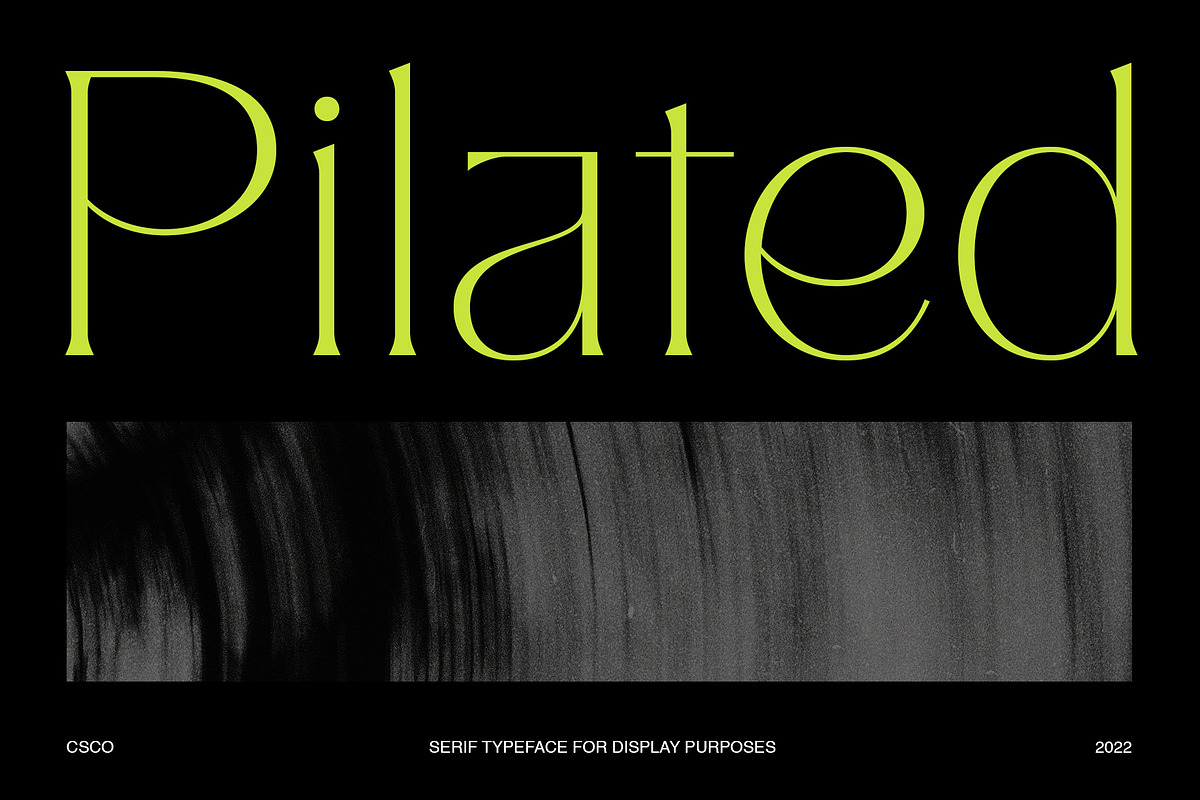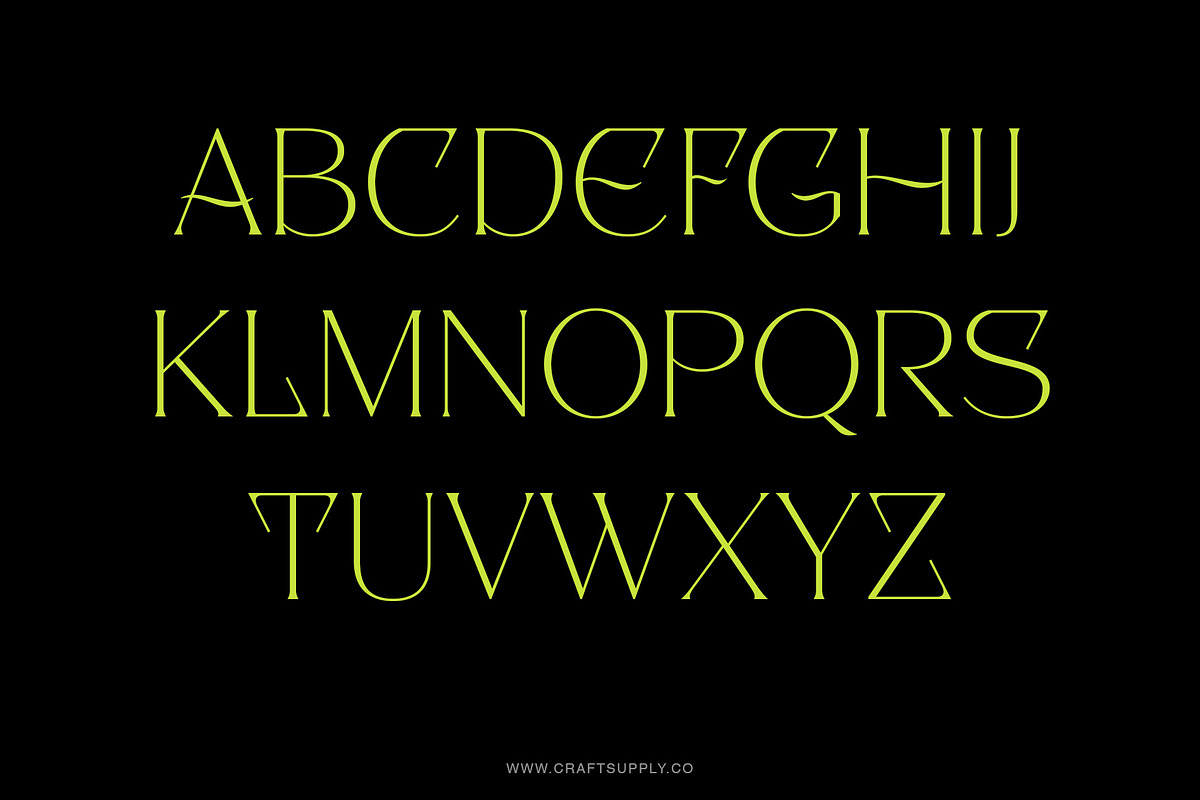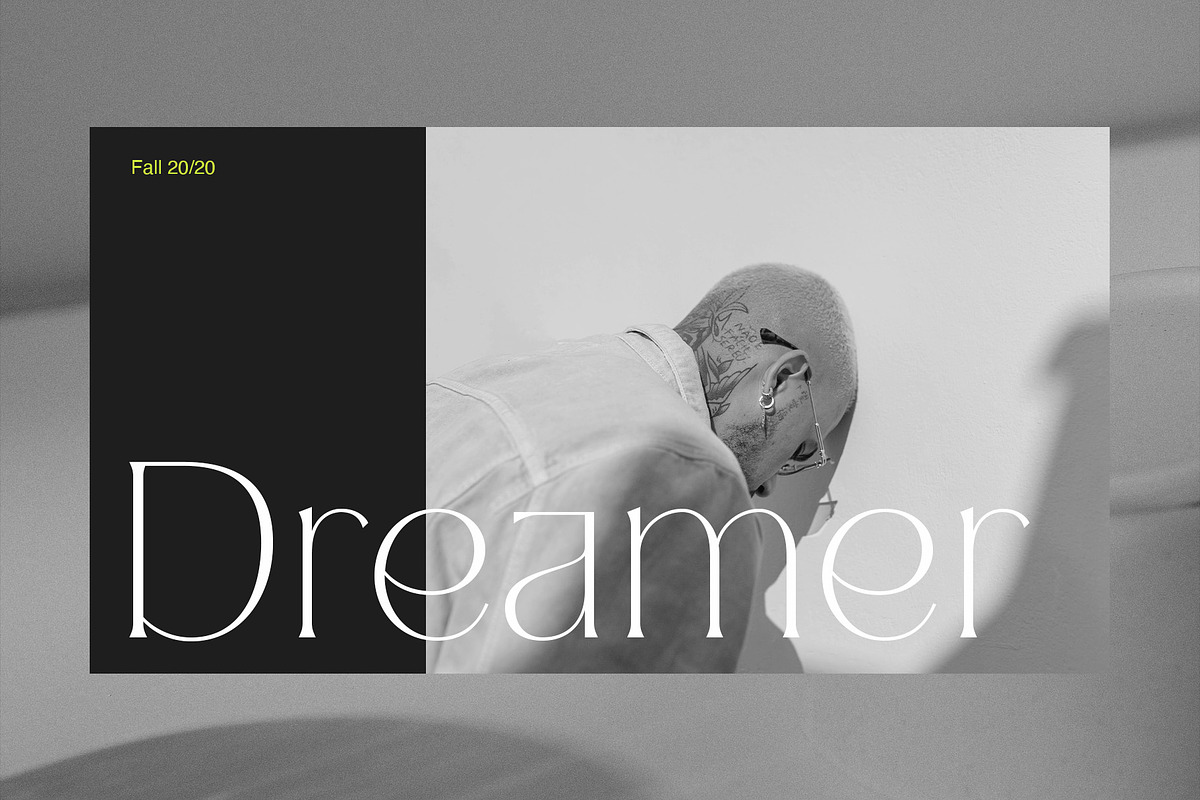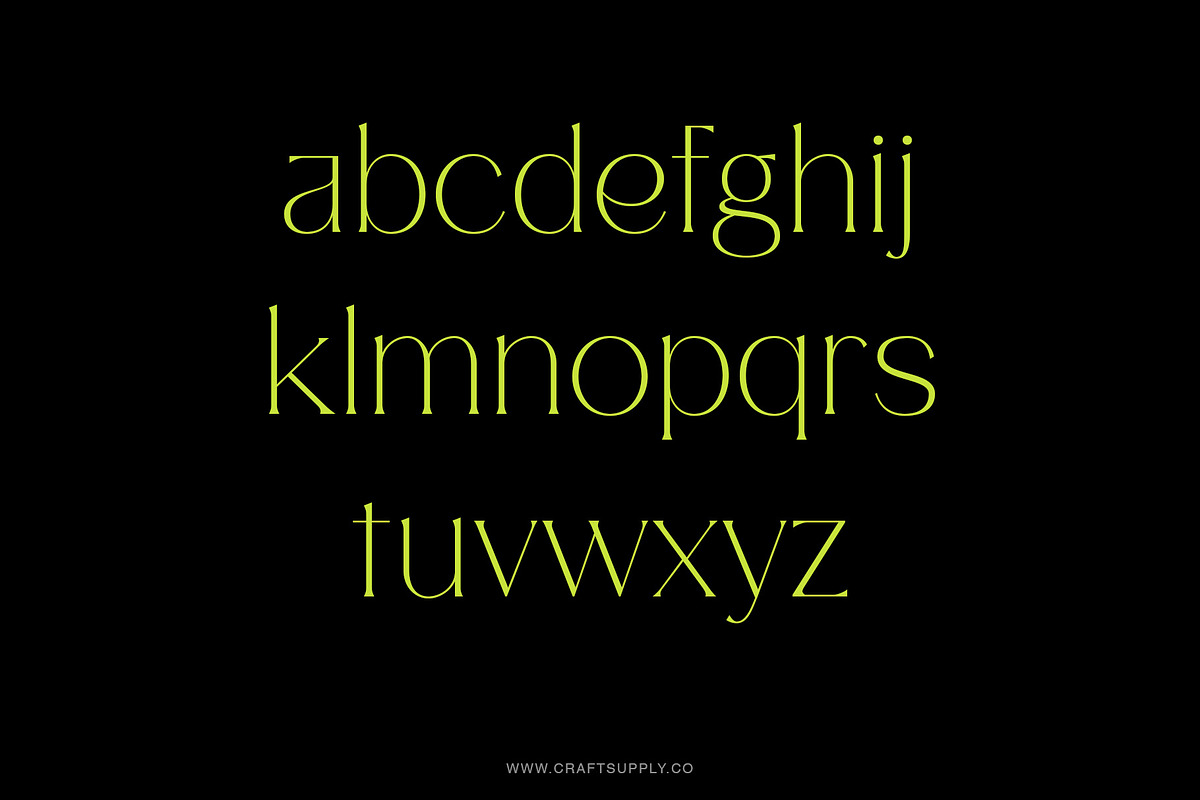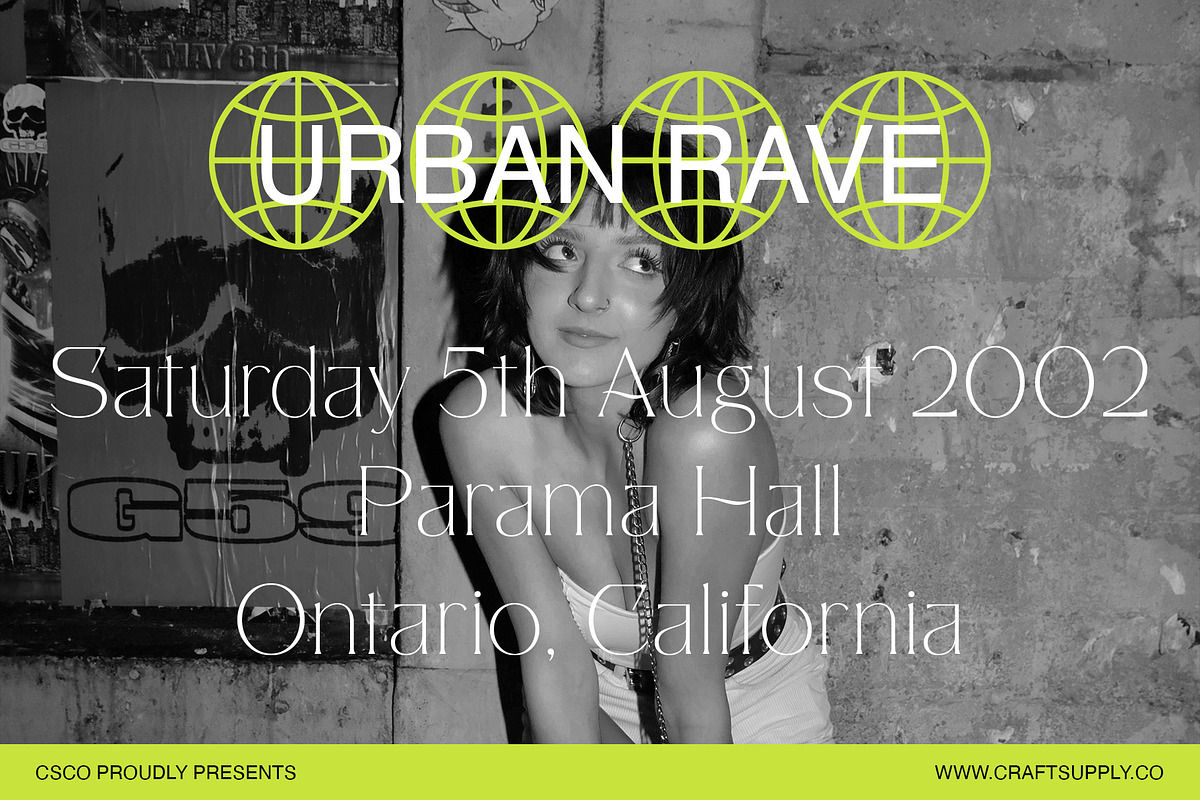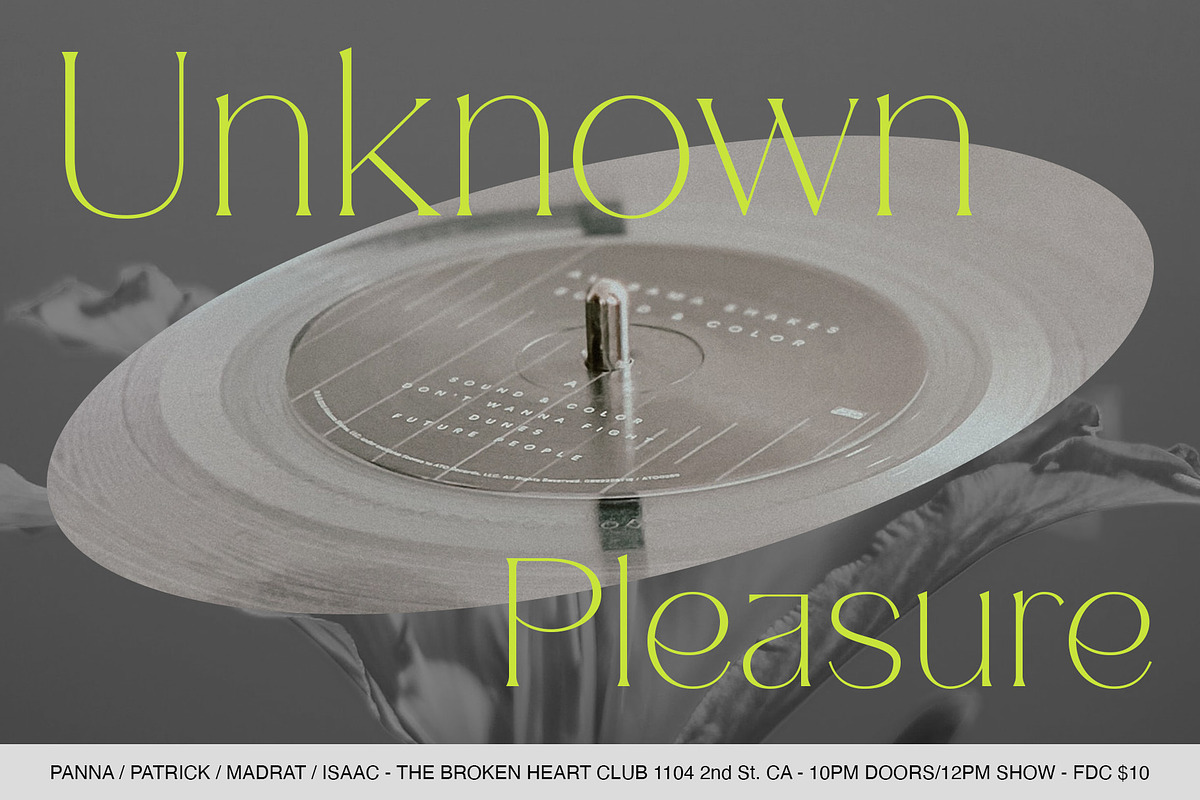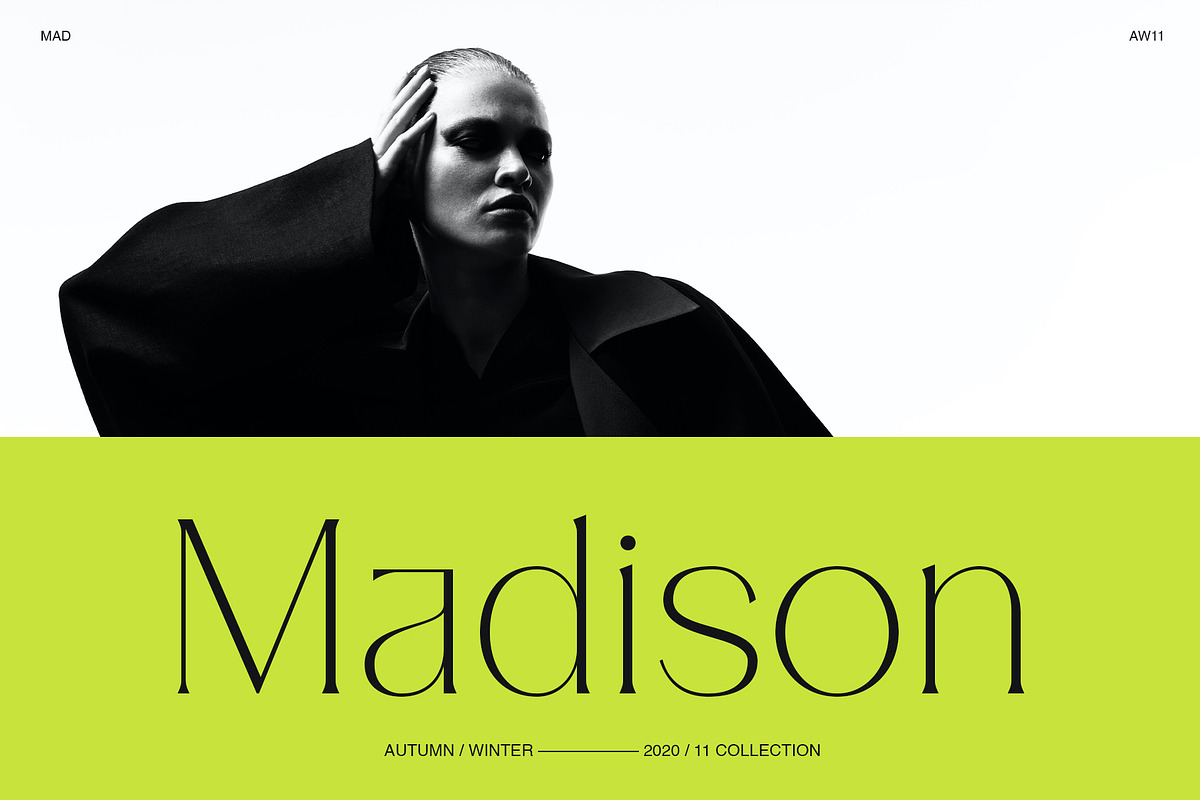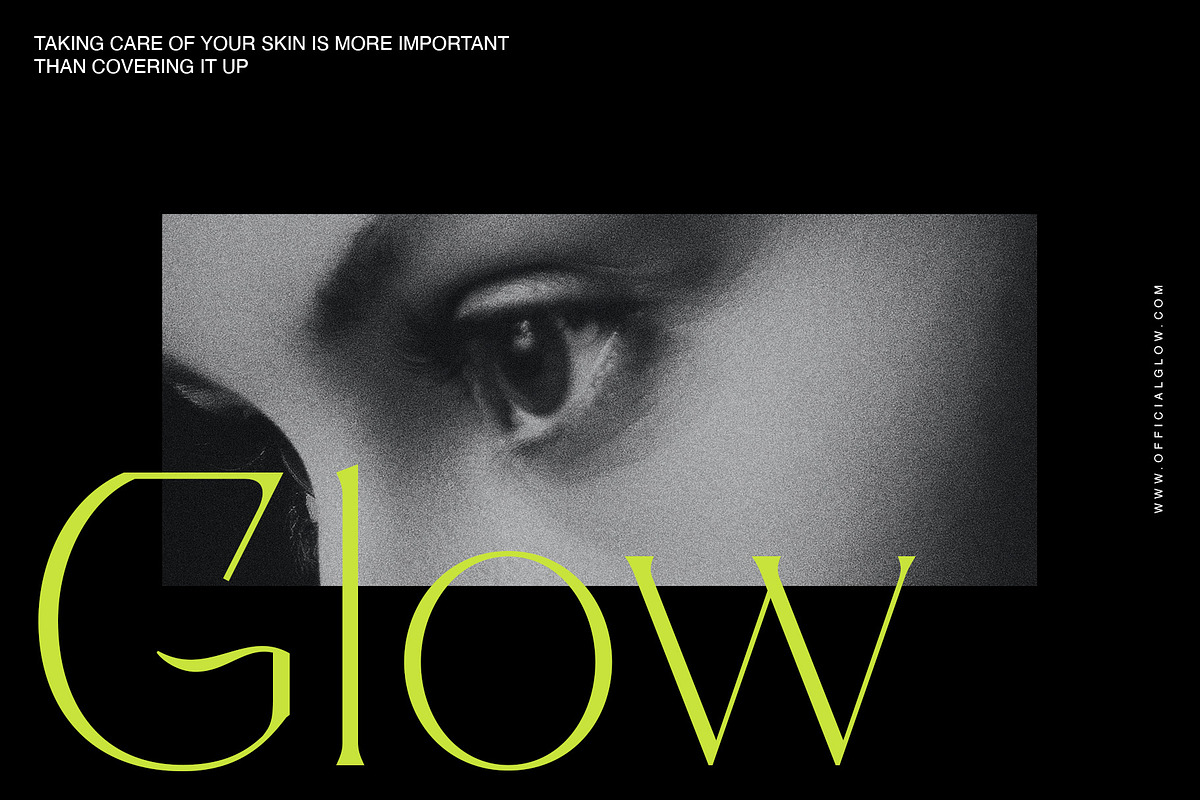
Pilated - Serif Typeface
Introducing Pilated - Serif Typeface.
Pilated features thin stroke and low-contrast modulation that make it modern and elegant. It can be used to create almost all types of design projects like print materials. Just use your imagination and your project will become more alive and look great than ever with this typeface.
You want to make a greeting card or a package design, or even a brand identity, craft design, any DIY project, book title, wedding font, pop vintage design, retro design or any purpose to make your art / design project look pretty and trendy? Feel free to play with this typeface!